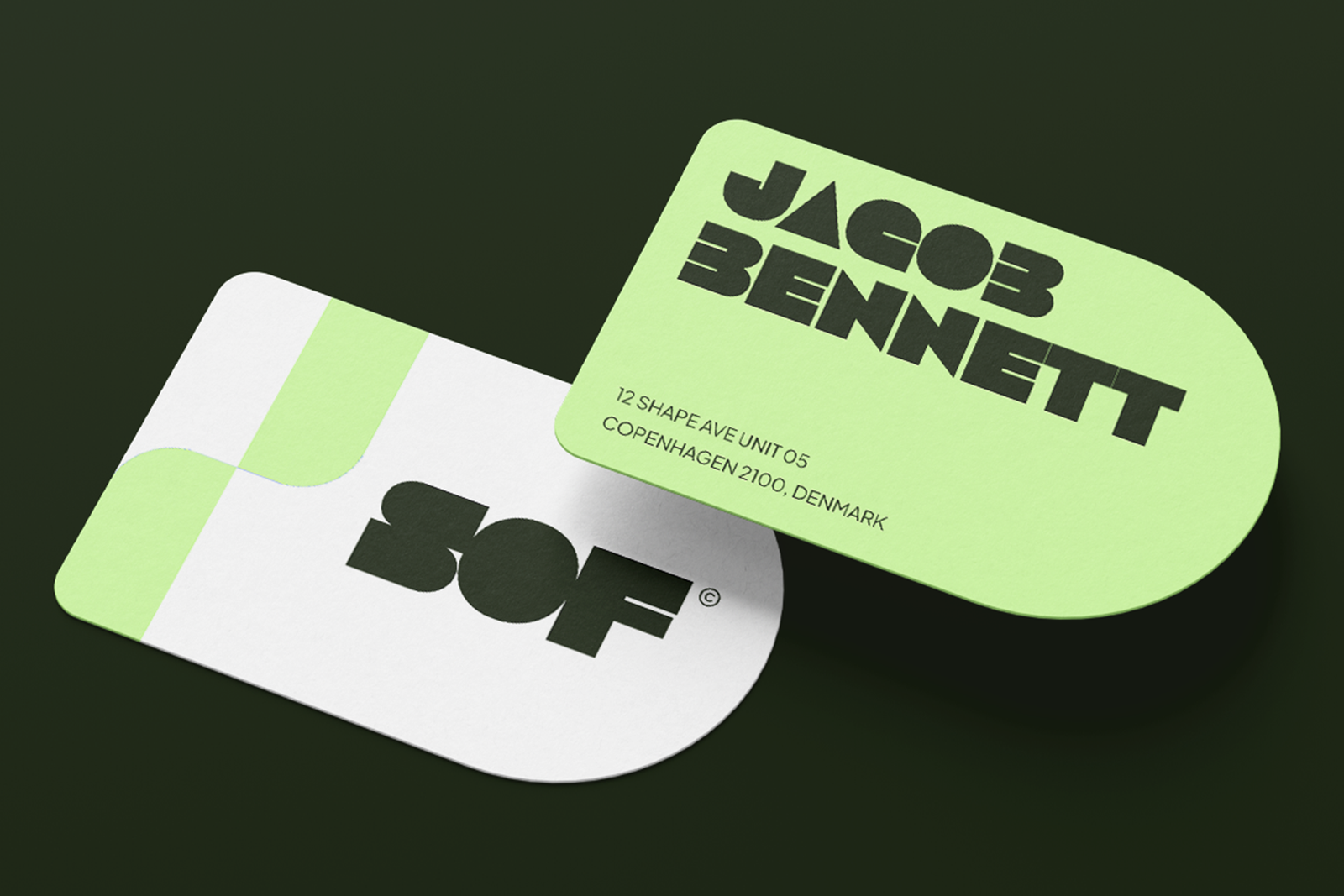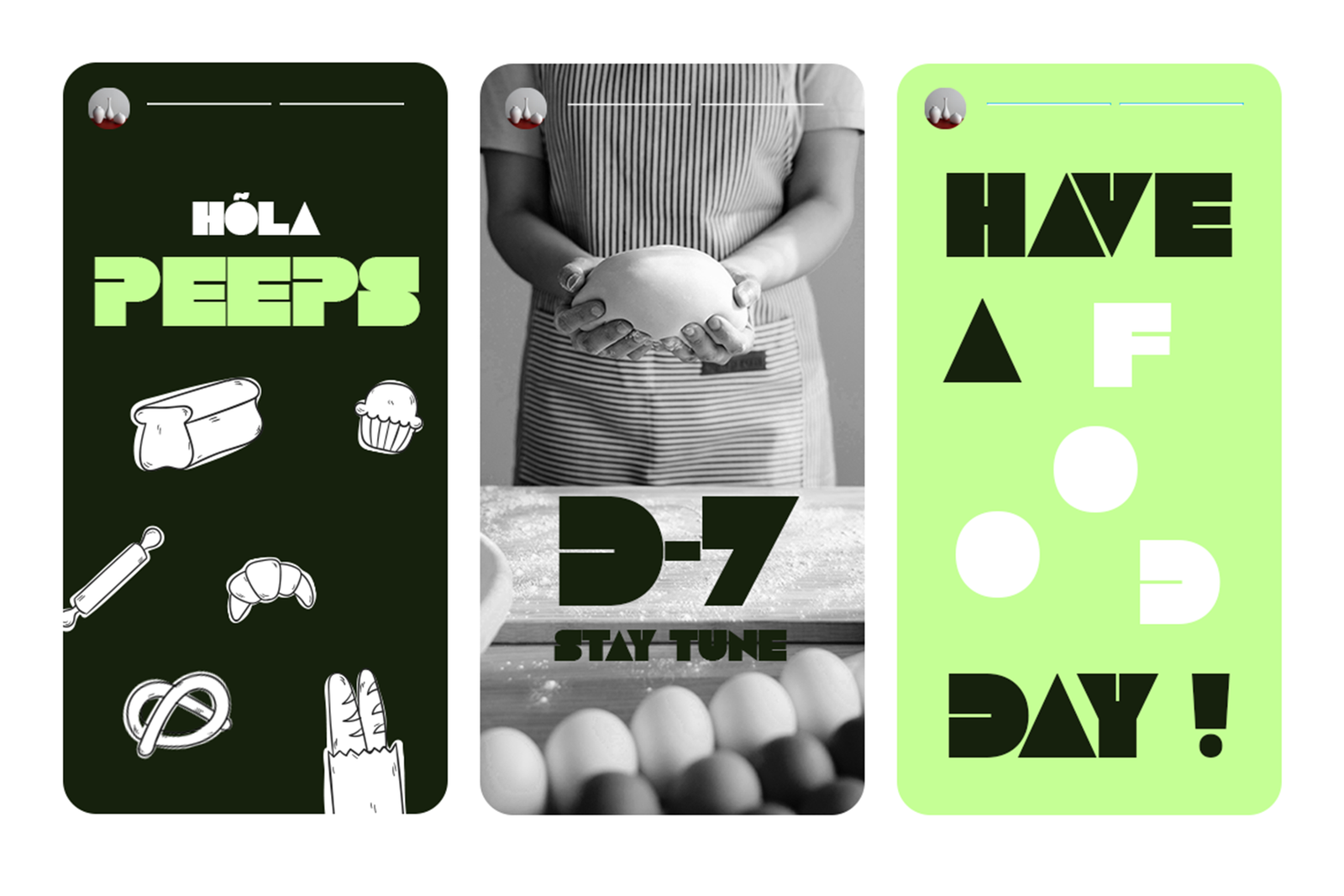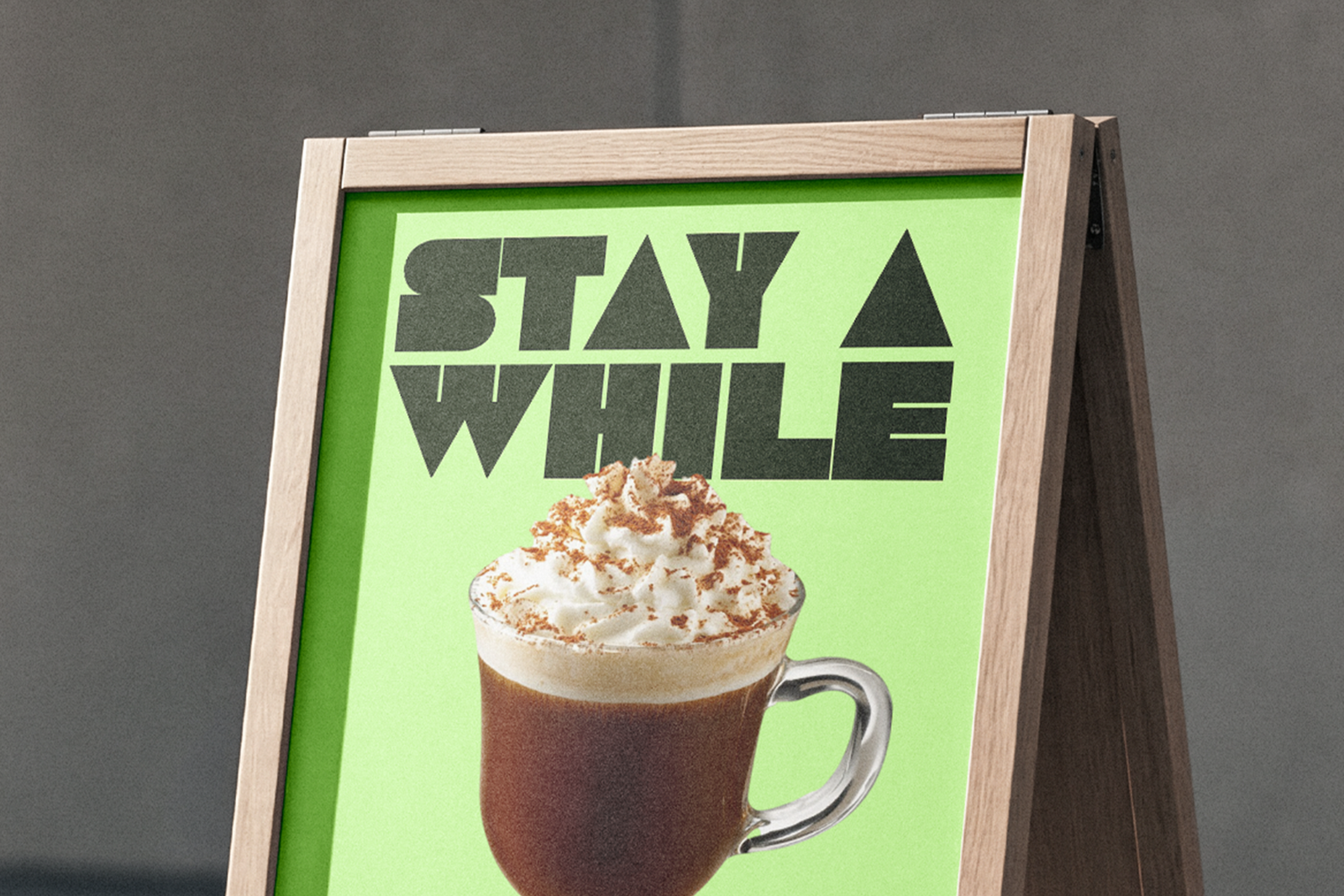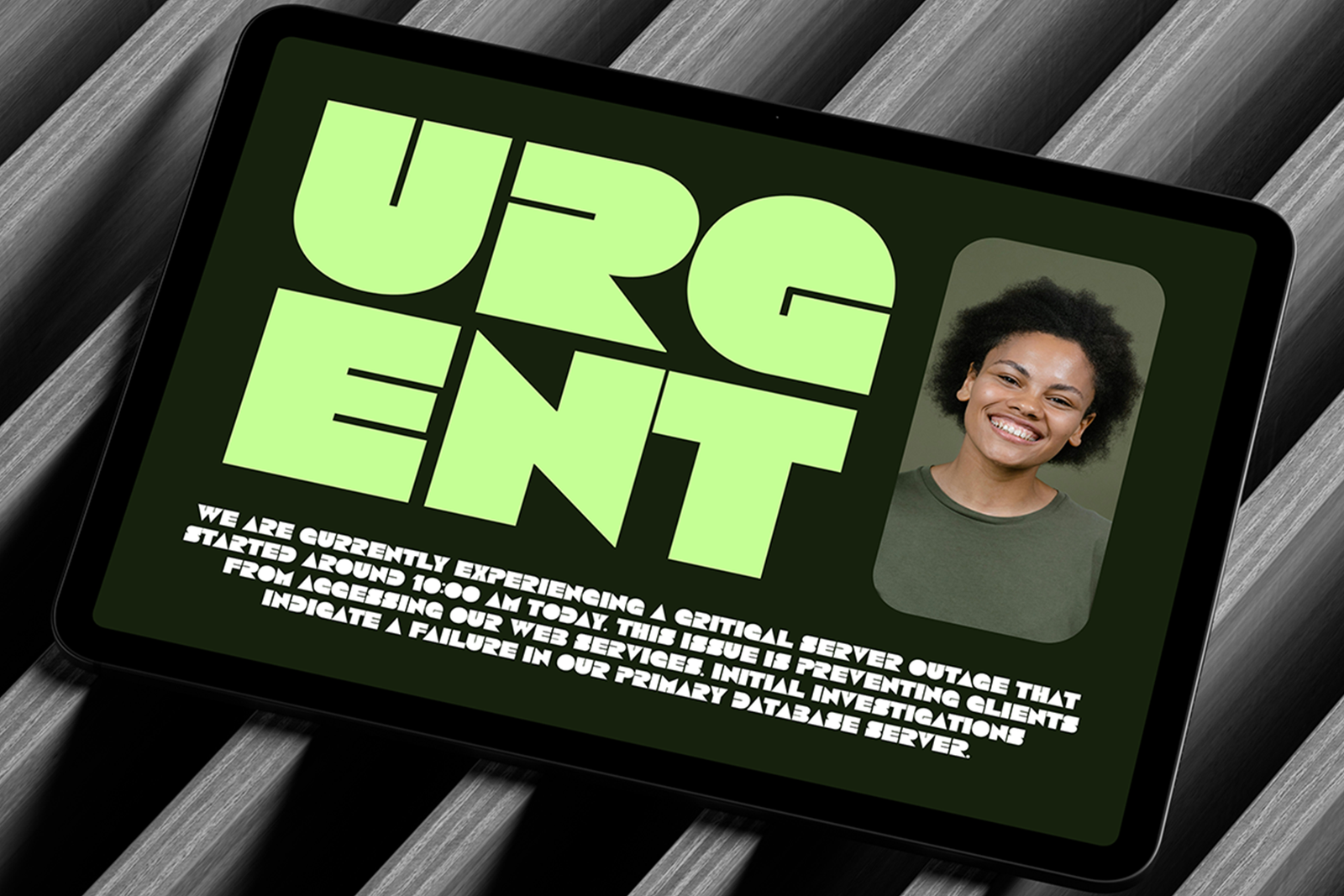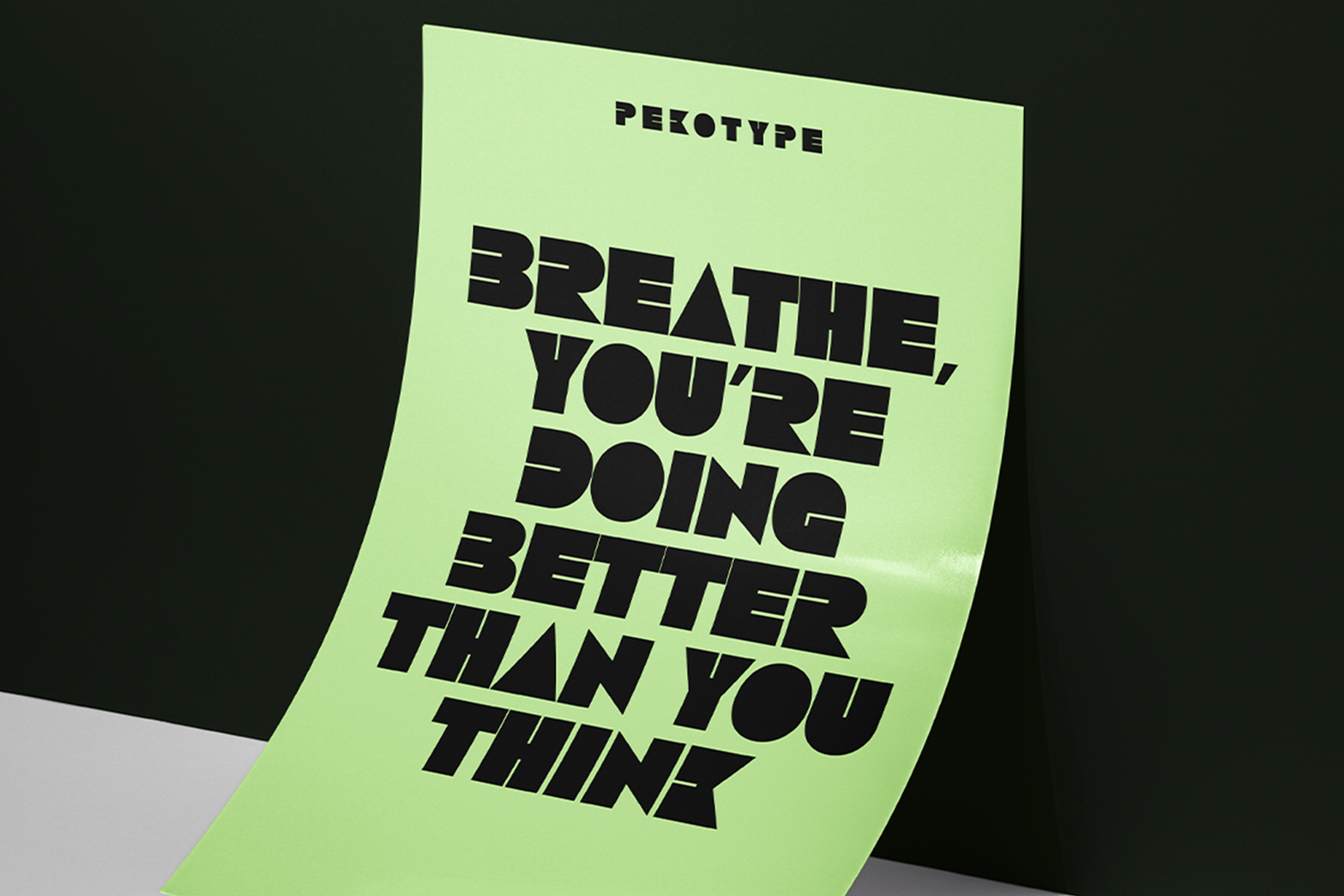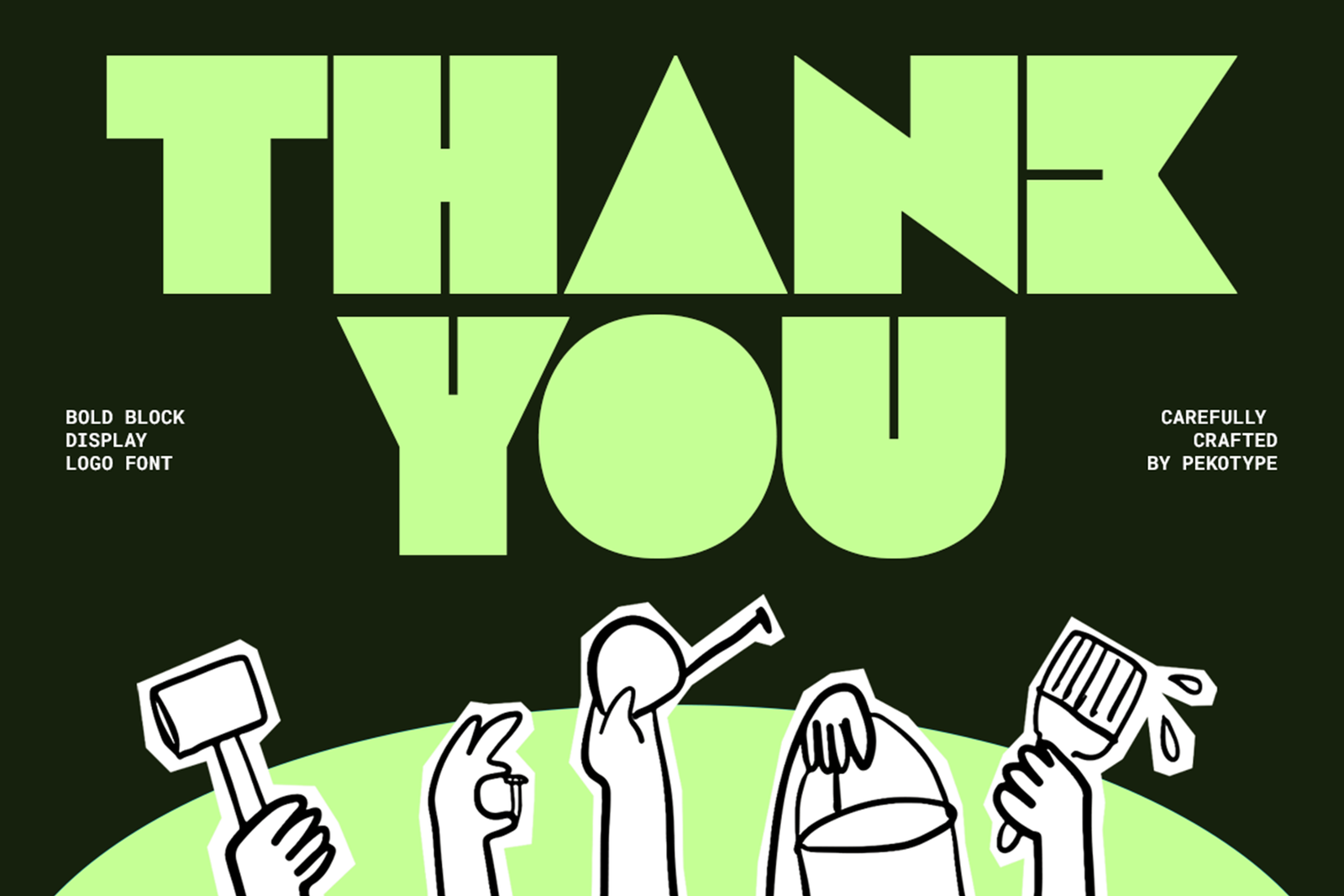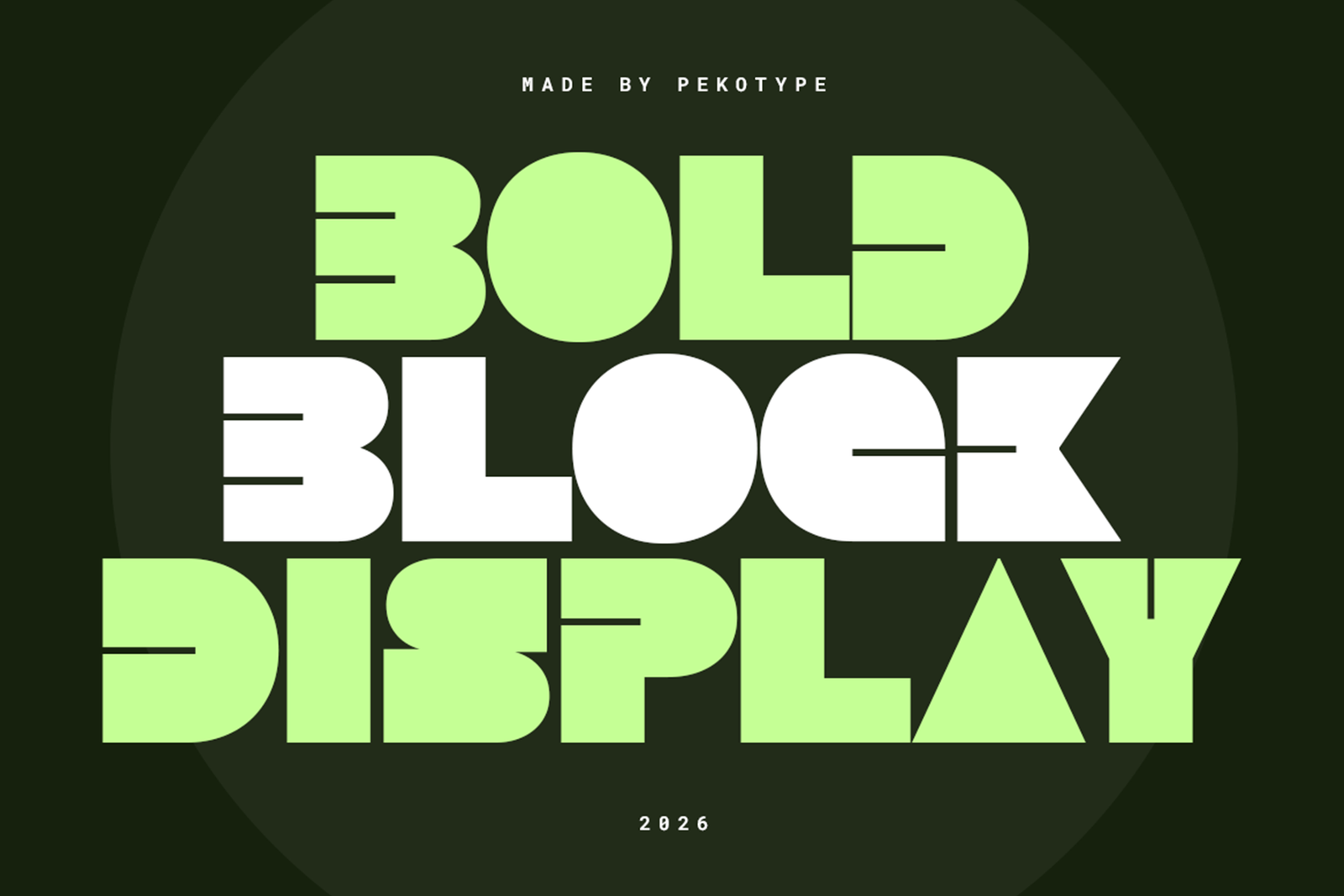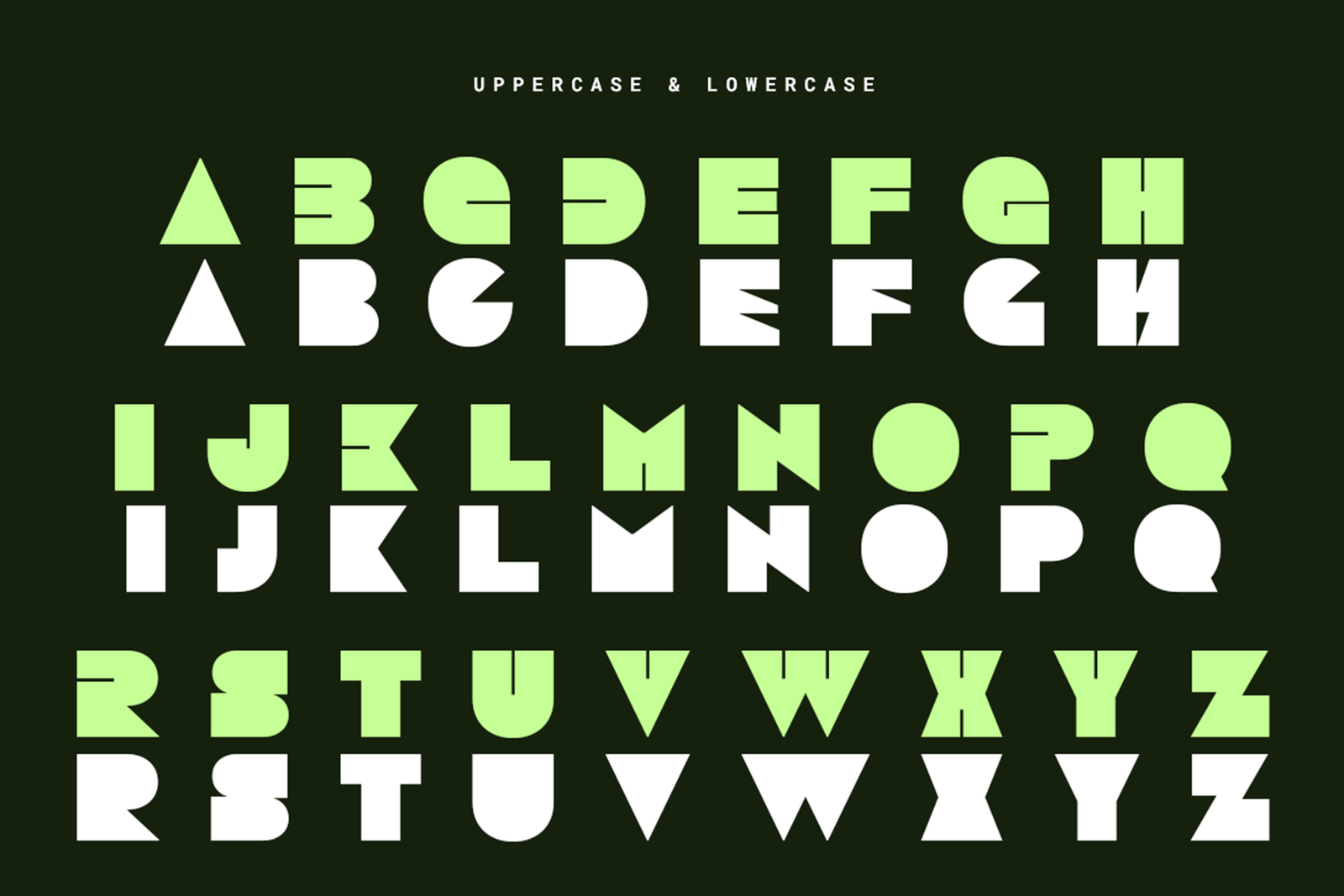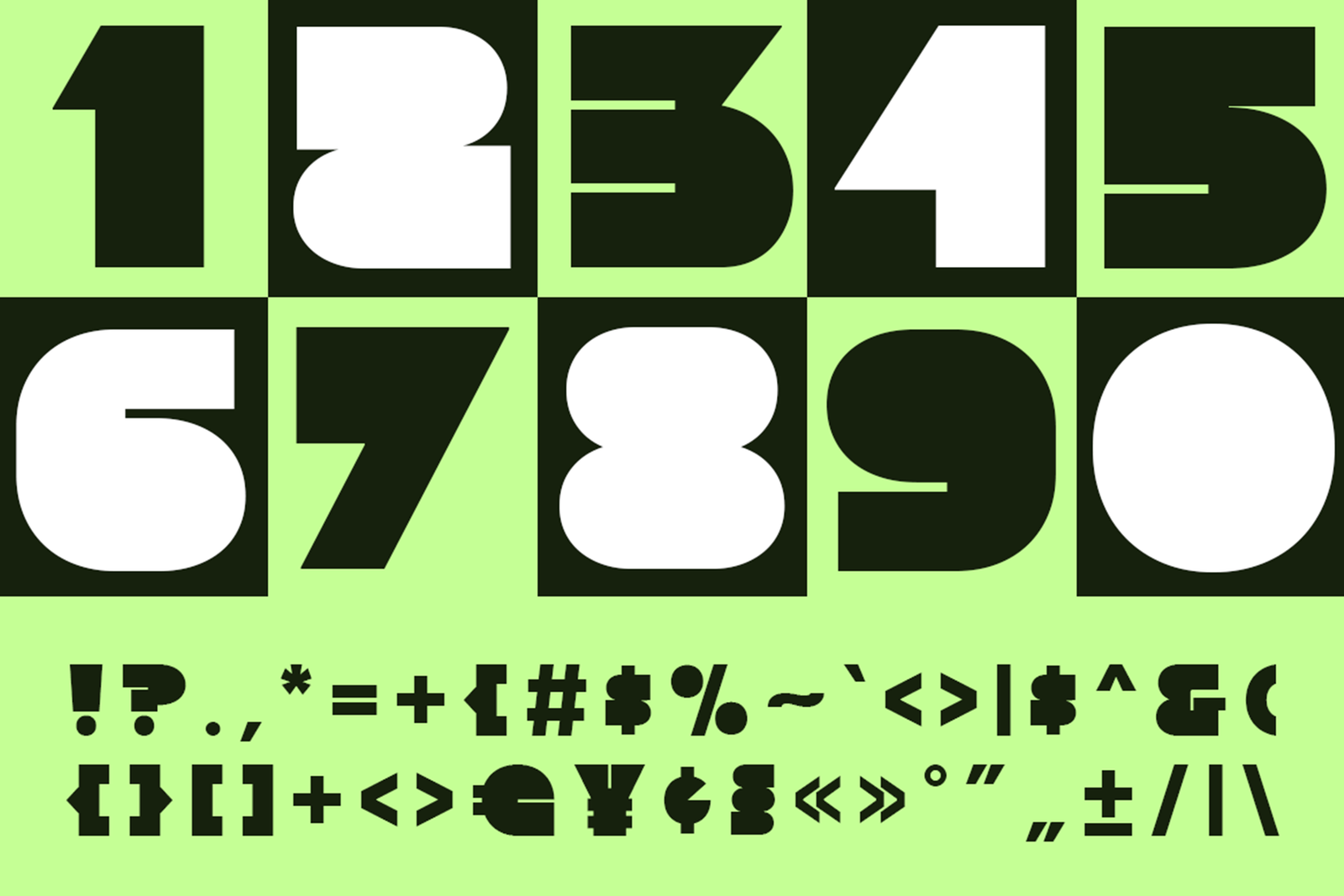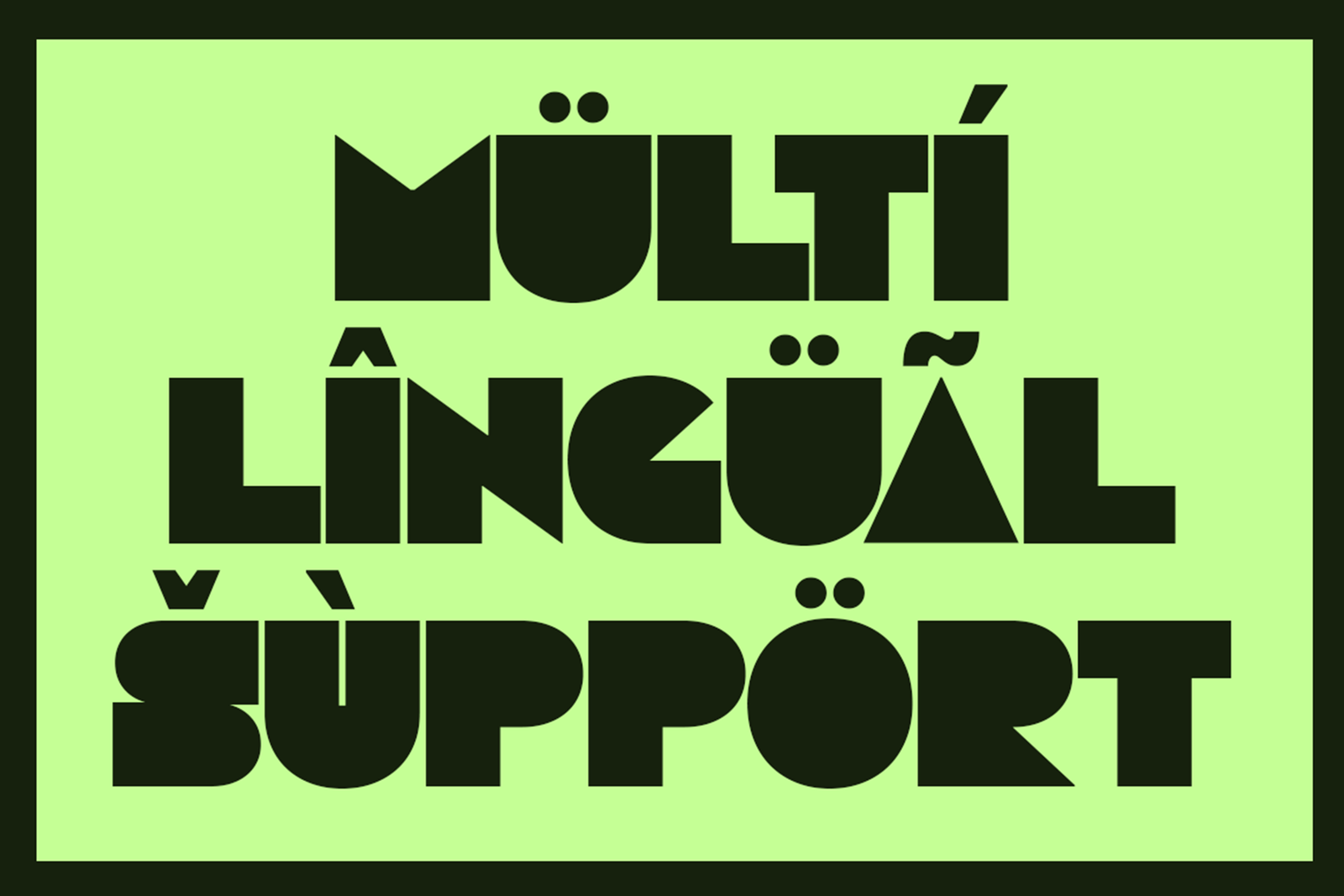
NOBU Font is a bold block display typeface with strong geometric shapes and a playful modern style. Perfect for logos, branding, posters, packaging, social media, and creative projects that need a powerful visual impact.
NOBU Font is a bold block display typeface designed with strong geometric shapes and a playful modern personality. Featuring chunky letterforms, unique cuts, and a confident structure, this font creates a powerful visual impact while maintaining a clean and balanced appearance.
Perfect for logos, branding, posters, packaging, signage, social media graphics, café menus, event promotions, and creative headlines. The bold character makes it ideal for designs that need to grab attention and create a memorable impression.
NOBU works especially well for modern brands, fashion visuals, technology projects, lifestyle products, and contemporary campaigns. Its geometric style gives your designs an energetic and trendy look without feeling overly complicated.
This versatile display font includes uppercase and lowercase letters, numbers, symbols, punctuation, and multilingual support. Whether used for large headlines, product labels, promotional materials, or digital content, NOBU helps your design stand out with a strong and distinctive personality.
NOBU Font is a great choice for designers who need a bold, creative, and impactful typeface for modern branding and visual projects.